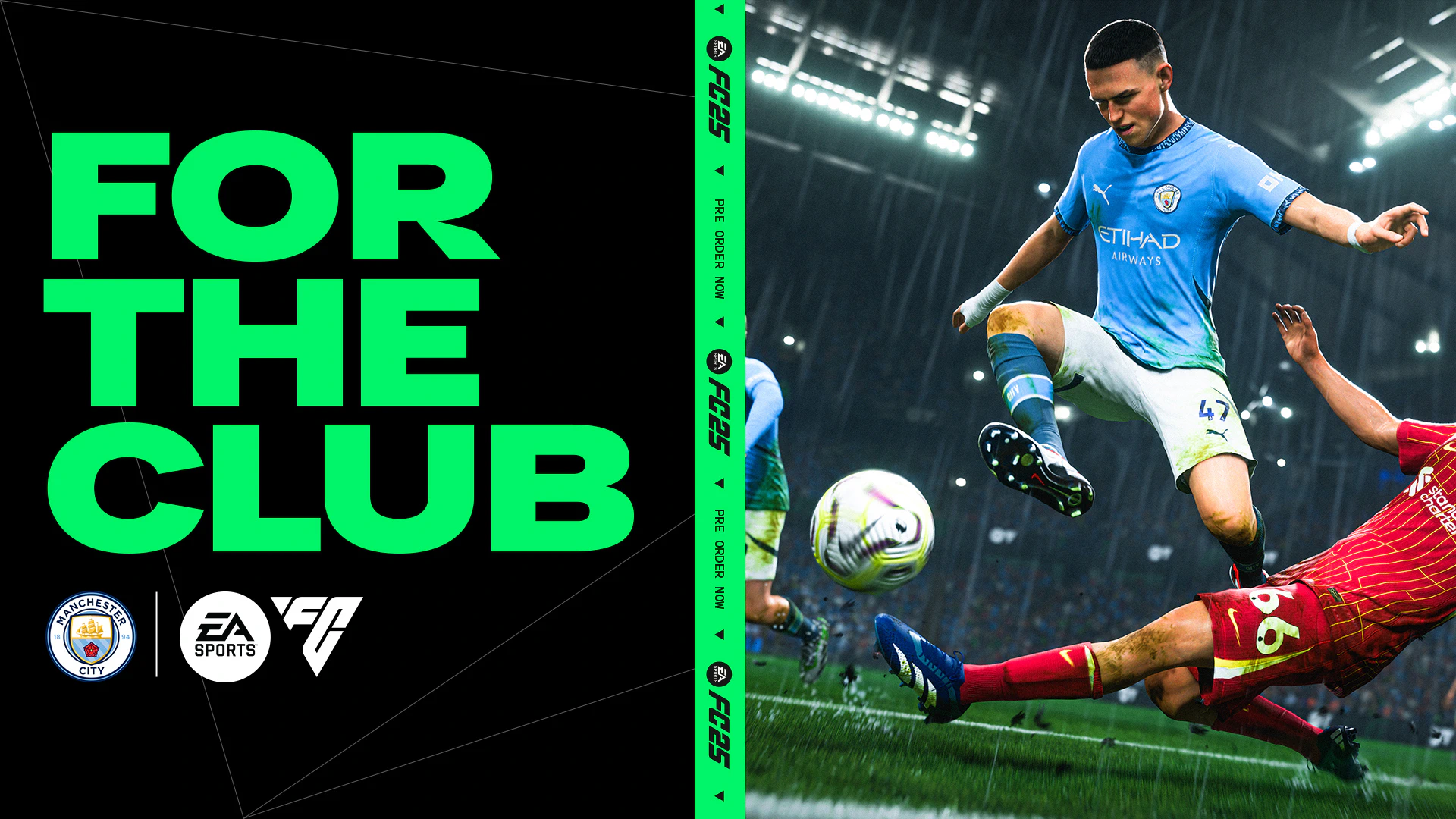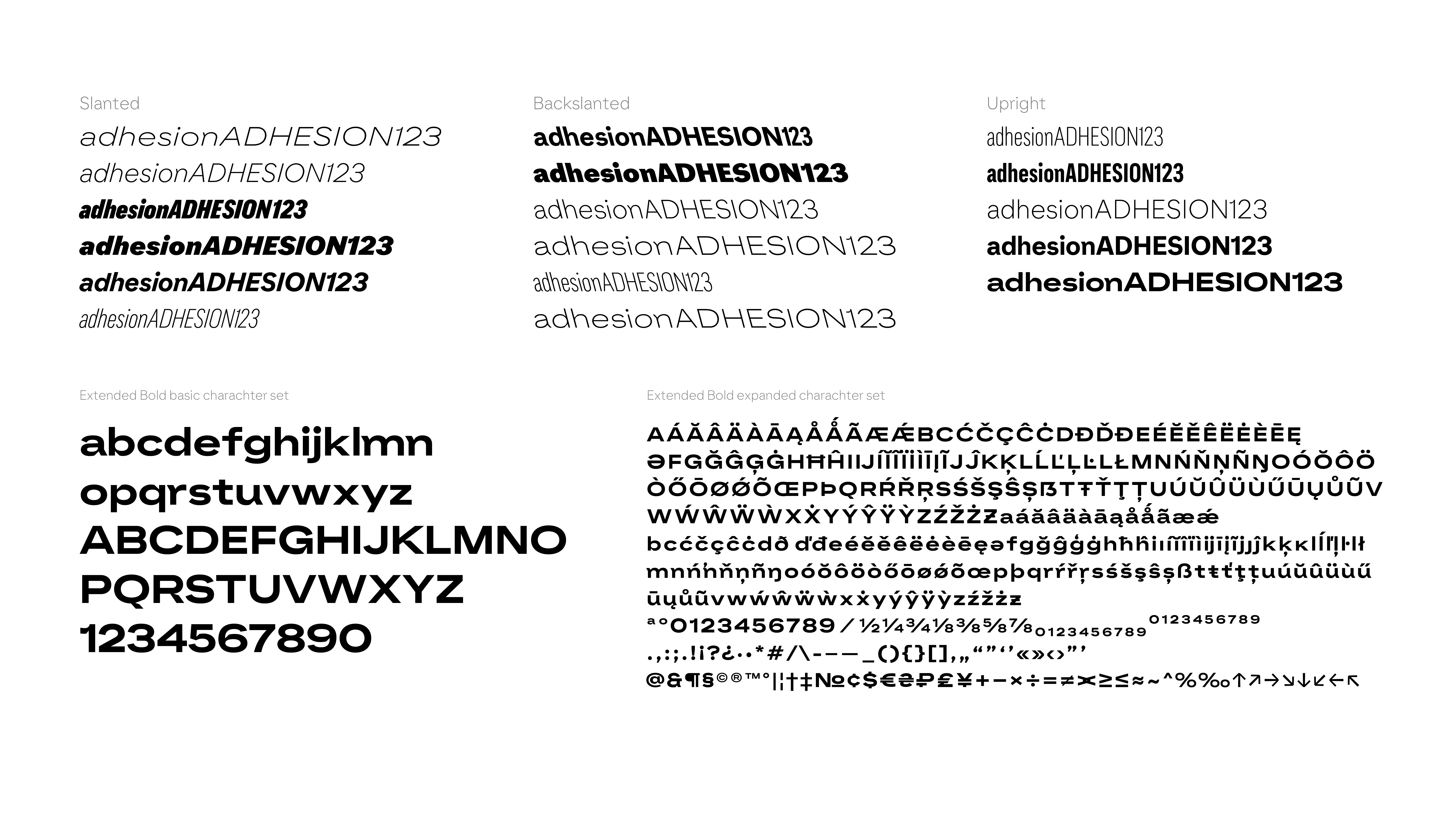
EA Sans
Working with the F37 Foundry team, I helped with the production and expansion of the EA Sans typeface family. My primary assignment was to establish the character sets for the Light, Regular, and Bold masters across three distinct widths. I also produced designs for the slanted and back-slanted versions of the family and expanded the Latin character sets on some masters, ensuring consistency across the entire typeface system.